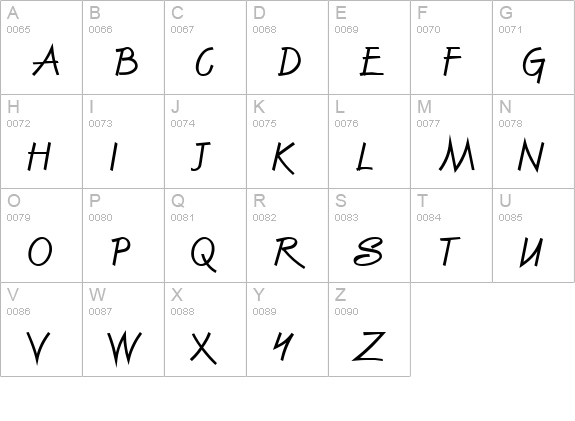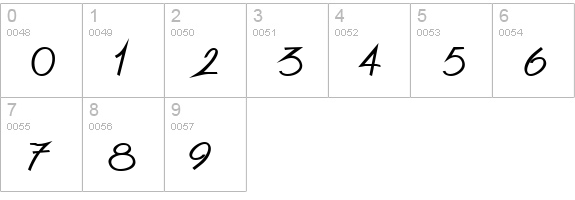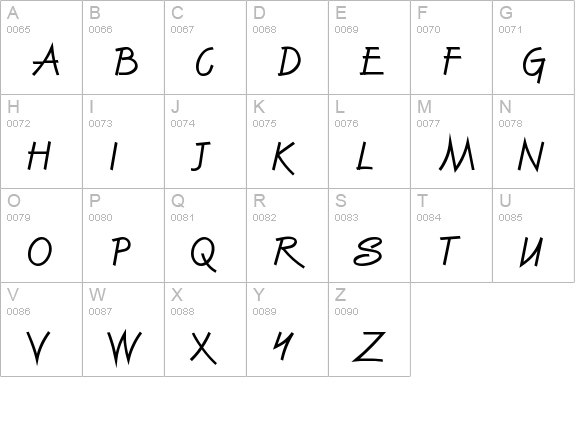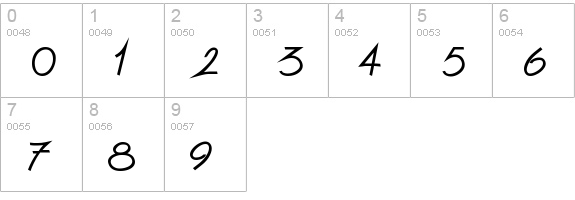
Vizier Bold Font Details
Vizier Bold is a strong, high-contrast variant in the Vizier typeface family \xE2\x80\x94 well suited to headlines, attention-grabbing titles, and strong calls-to-action.
Introducing Vizier Bold, a striking and charismatic font that possesses an undeniable allure. With its bold and commanding presence, Vizier Bold is sure to make a lasting impression in any design project. Its strong and confident letterforms are expertly crafted, exuding a sense of power and sophistication. Vizier Bold is the perfect choice for headlines, titles, and any design element that requires a strong and impactful presence. Whether it's for a magazine spread, branding materials, or advertisements, this font will effortlessly captivate the attention of your audience. In addition to its stunning aesthetics, Vizier Bold is also incredibly versatile. Its clean and legible design ensures readability across various mediums, whether it's print or digital. This font is a true workhorse, ready to meet the demands of any creative endeavor. The best part? Vizier Bold is freely available to download at FontsMarket.com. Yes, you read that right. This exceptional font can be yours at no cost, allowing you to elevate your designs without breaking the bank. FontsMarket.com is proud to offer this exclusive opportunity to access Vizier Bold and unleash its remarkable potential. Don't miss out on the chance to enhance your design projects with the captivating allure of Vizier Bold. Download this exceptional font today and experience the power and versatility it brings to your creative ventures.